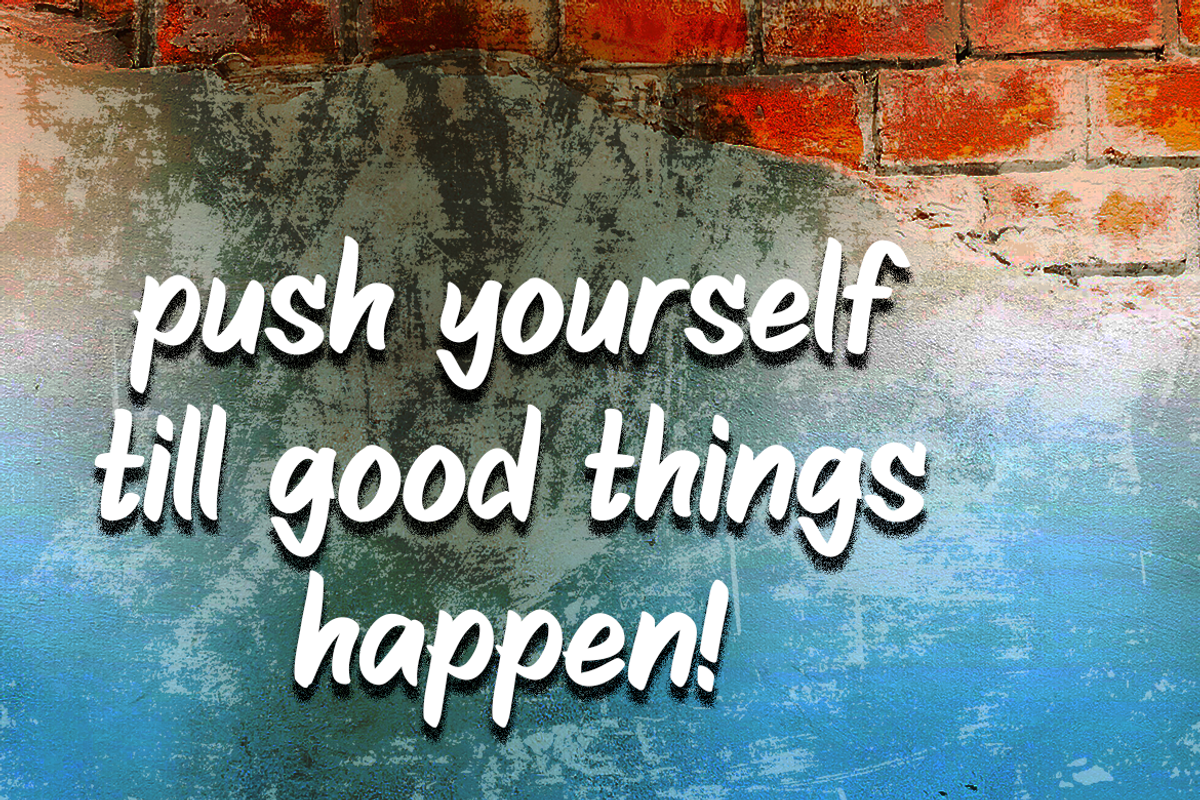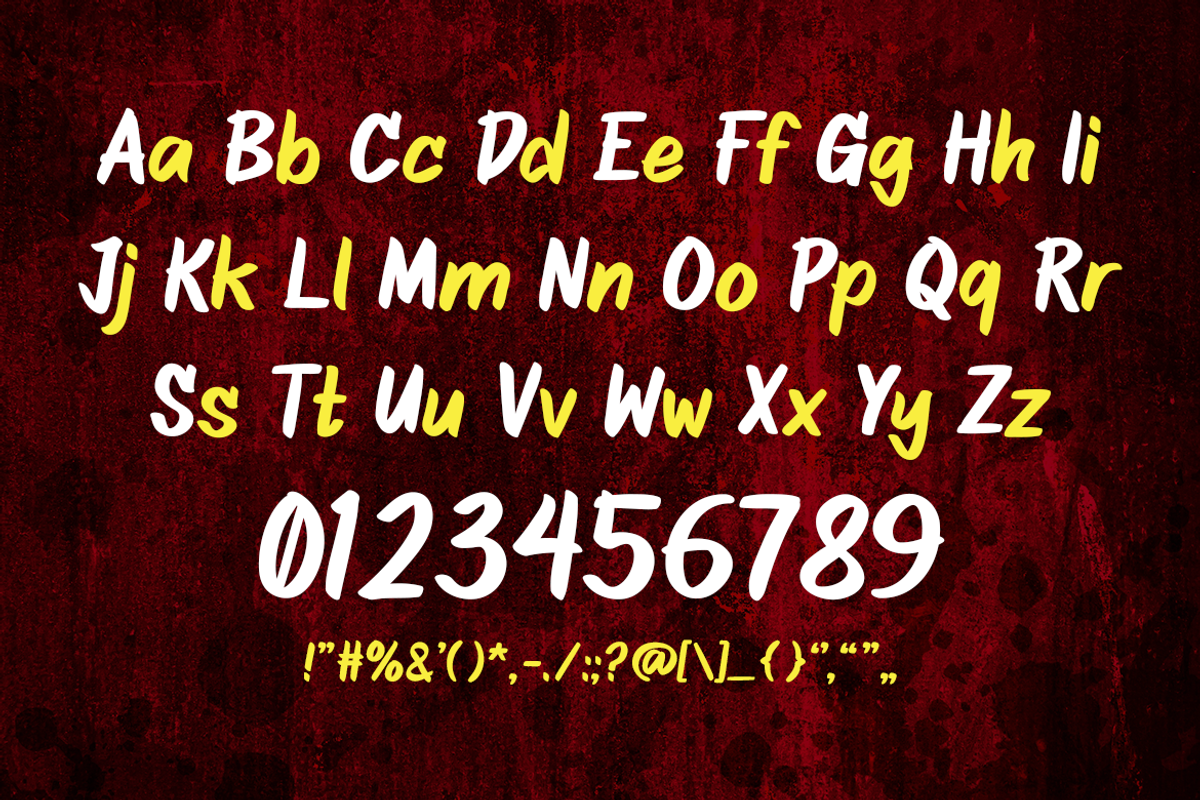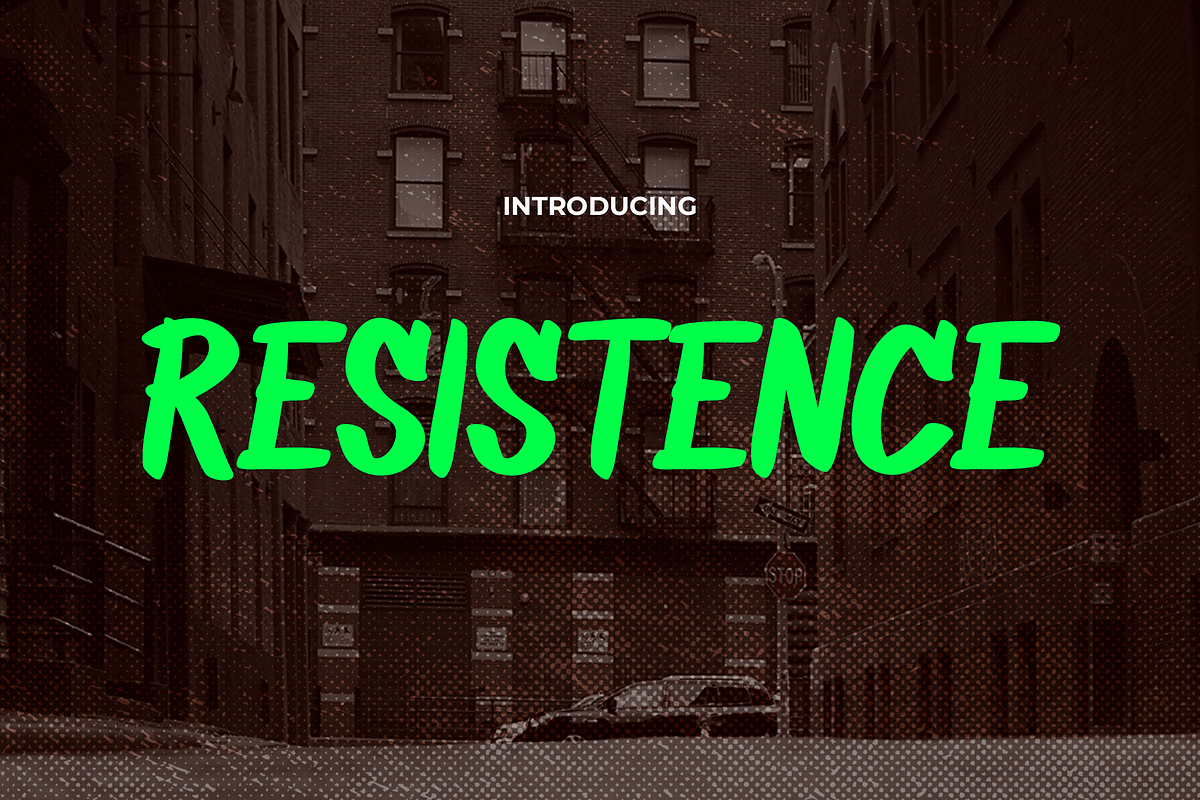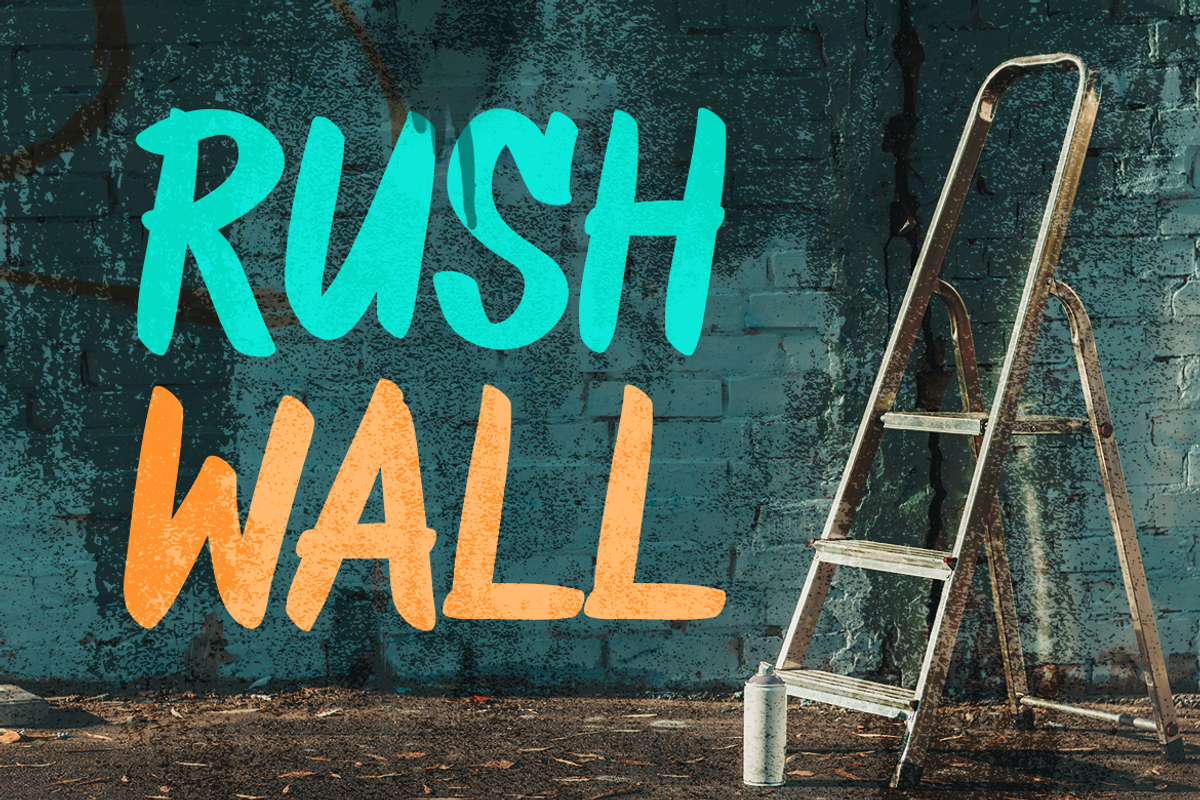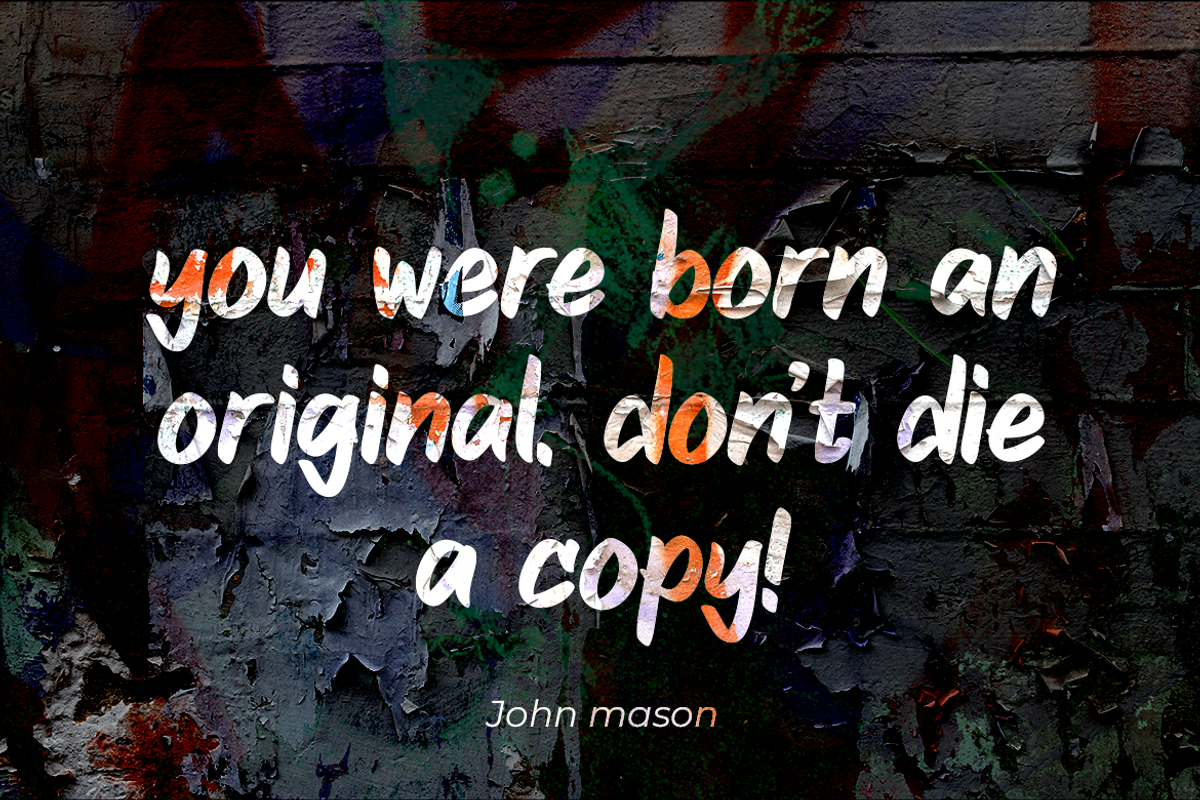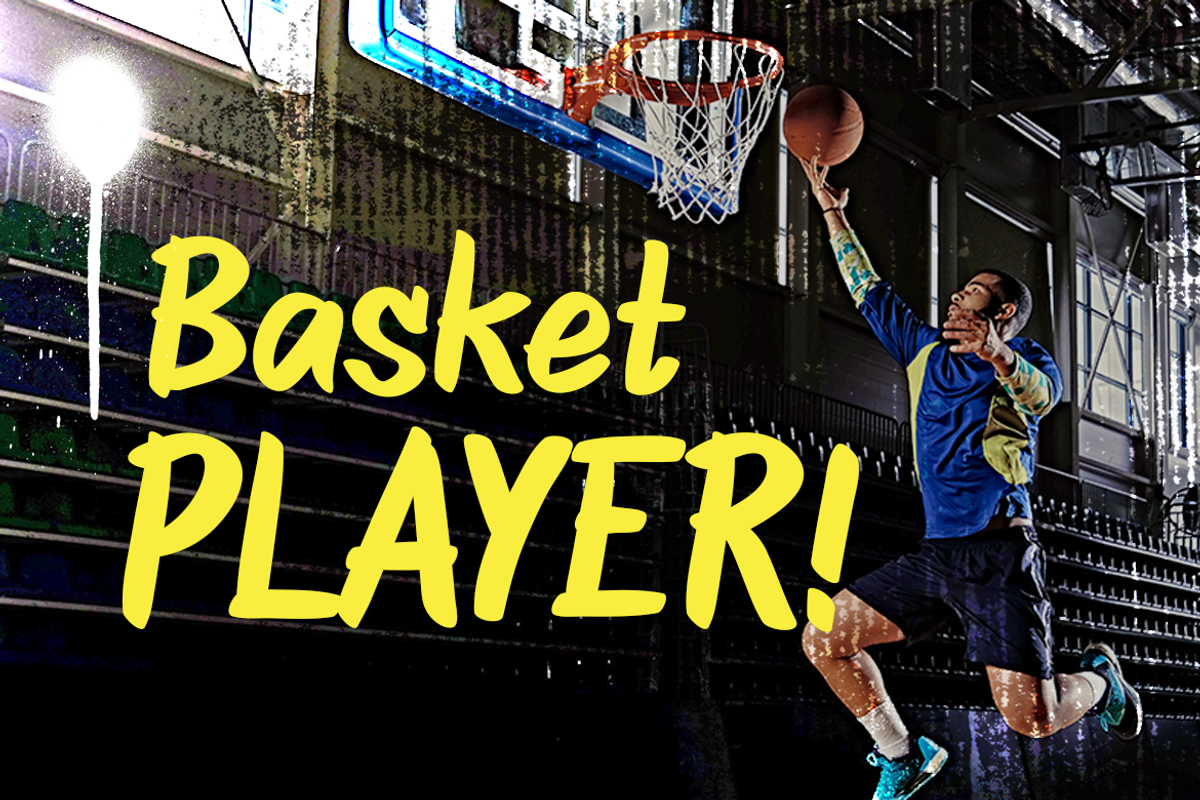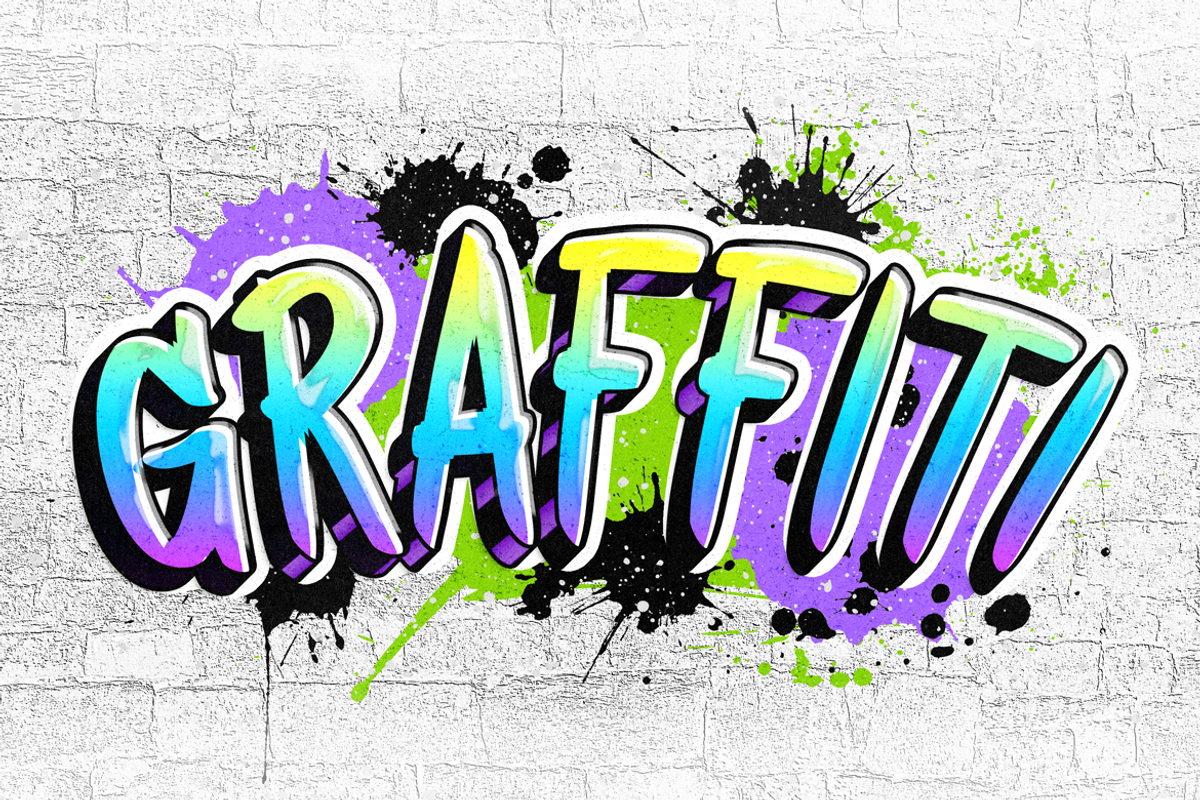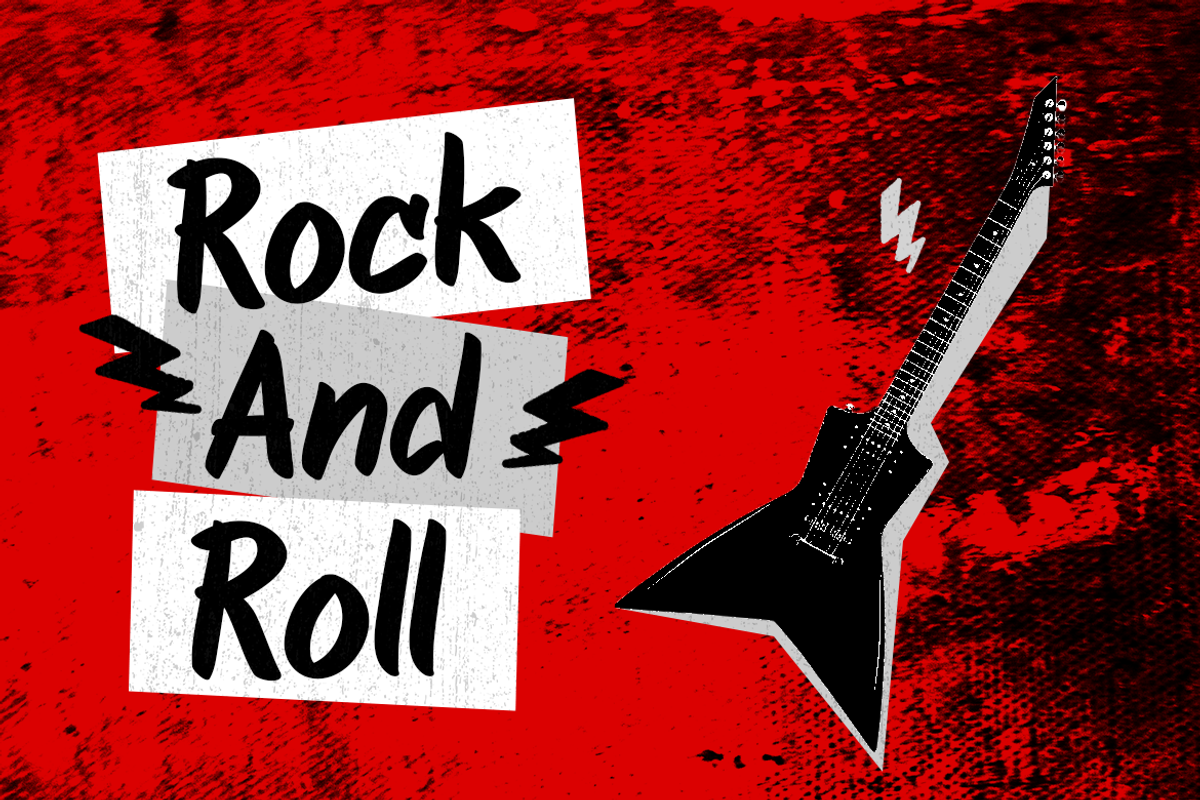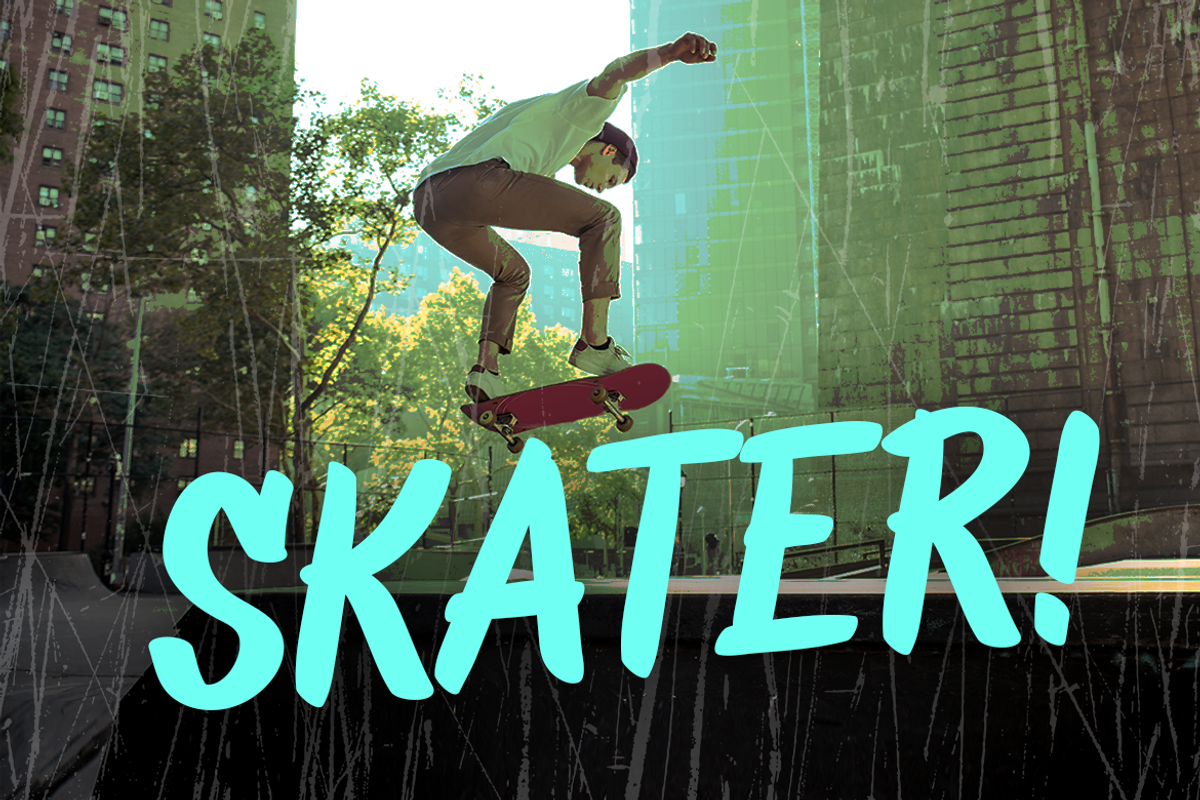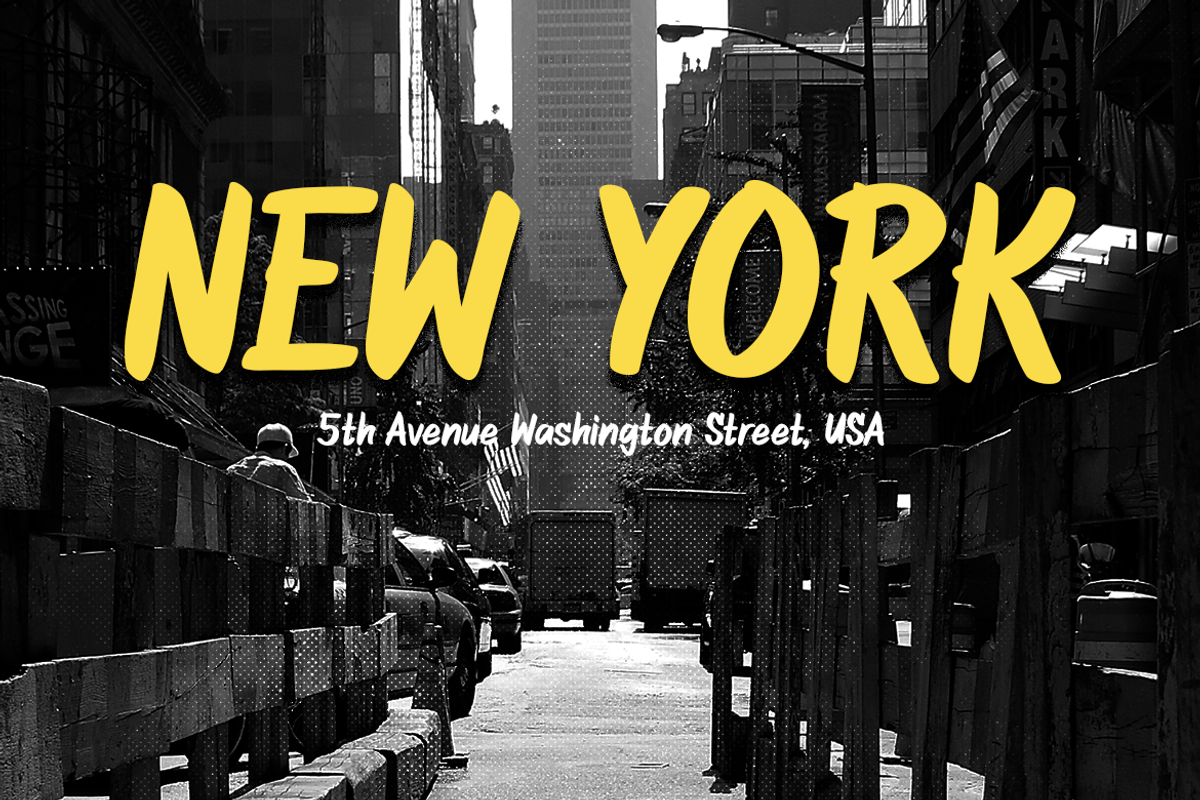
RESISTENCE
Resistence – The Modern Urban Graffiti Font
Resistence is a dynamic font that captures the spirit of modern urban culture with its graffiti-inspired design. This font is a true representation of the street art aesthetic, bringing an edgy and contemporary feel to any project. Its modern graffiti style is perfect for creating logos that stand out with a raw, urban edge. The bold and expressive nature of Resistence makes it ideal for impactful quotes, where it adds a layer of streetwise authenticity.
When used in invitations, this font transforms ordinary events into exciting, avant-garde gatherings. Its use in posters and greetings infuses them with a vibrant, rebellious spirit that is sure to grab attention. For packaging and branding, Resistence offers a unique and memorable identity, resonating with audiences who appreciate a modern, urban vibe. In book covers, headlines, and advertising, this font ensures your message is not only seen but felt, embodying the heart of urban expression and creativity.